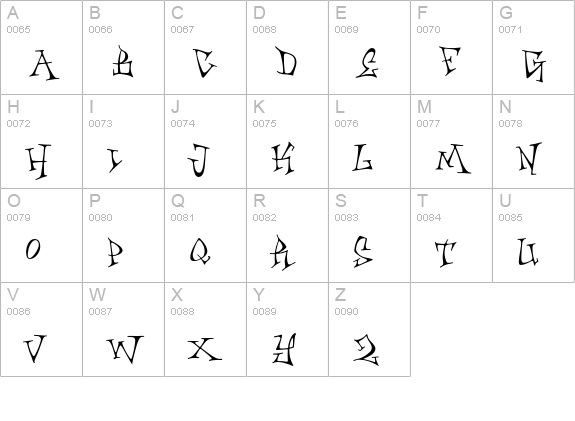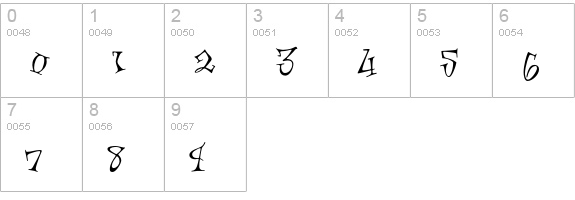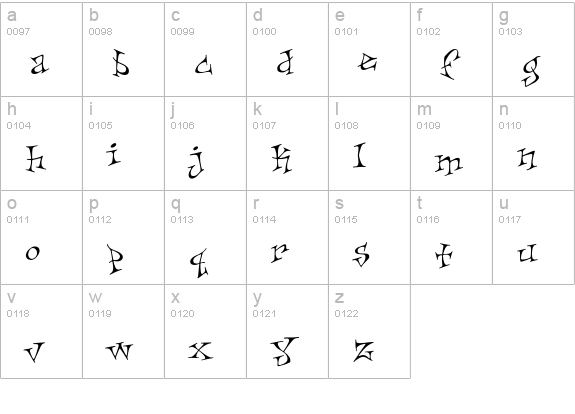
Skiffledog-Riff Font Details
Introducing Skiffledog-Riff, a captivating font that effortlessly combines the raw energy of skiffle music with the boldness of a guitar riff. This font is a perfect blend of playful charm and rock 'n' roll edge, making it a standout choice for any design project that demands attention. Skiffledog-Riff exudes a sense of freedom and rebellion, as each letter dances across the page with a delightful swagger. Its carefully crafted strokes and unique character shapes give this font an unmistakable personality, ensuring that your message will be conveyed with both style and impact. But what sets Skiffledog-Riff apart is not just its striking design - it's also the fact that it is freely available to download at FontsMarket.com. Yes, you read that right! This font is yours for the taking, making it an ideal choice for designers, artists, and creatives who want to add a touch of rebelliousness to their work without breaking the bank. Whether you're working on a poster for a music festival, designing album artwork, or creating a logo for a cutting-edge brand, Skiffledog-Riff is the perfect companion. Its versatility allows it to effortlessly adapt to any style or theme, while its free availability ensures that you can unleash your creativity without any restrictions. So, go ahead and download Skiffledog-Riff from FontsMarket.com today, and let this font be the driving force behind your next design masterpiece. With its free-spirited nature and captivating charm, Skiffledog-Riff is destined to leave a lasting impression on any project it graces.